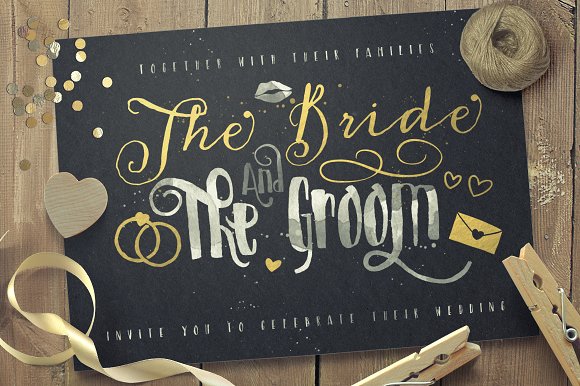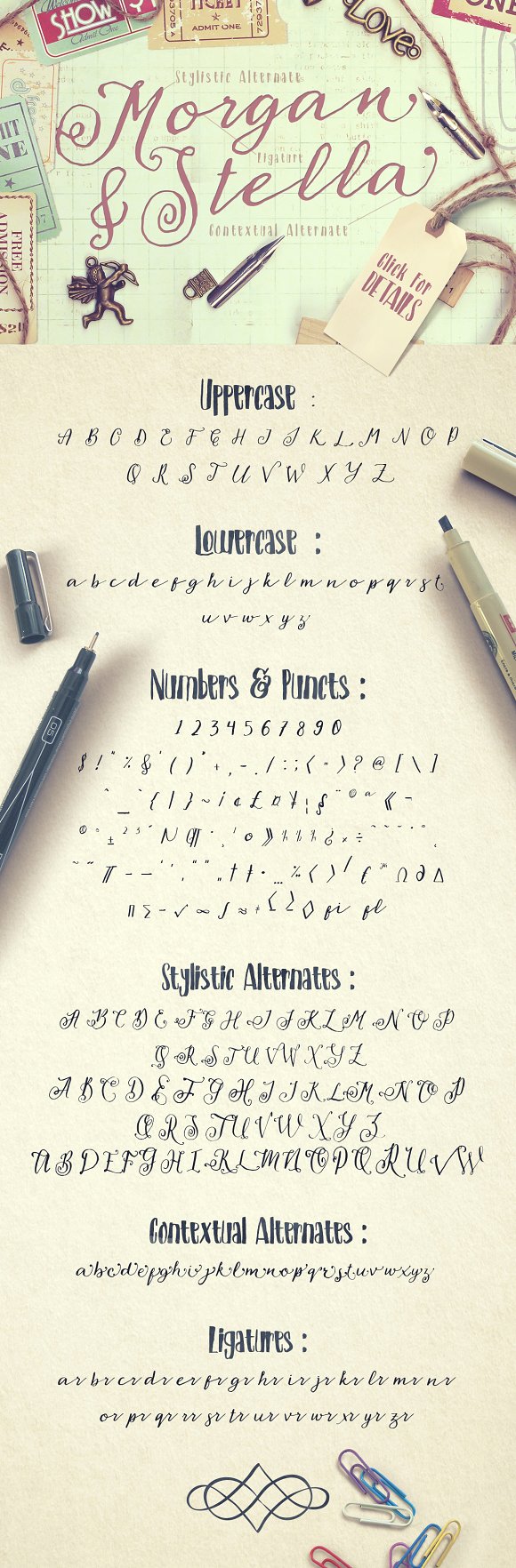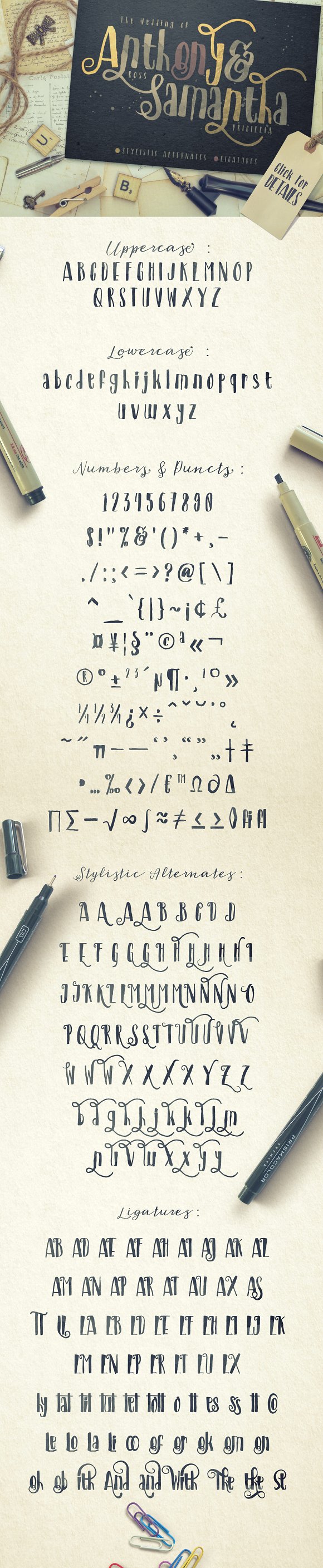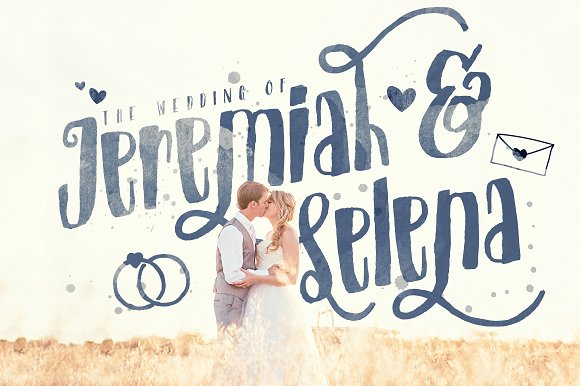
Just Married! Wedding Pack Font Bundle
Ladies and gentlemen, we present Just Married! Wedding Pack A bundle of 2 different vibe of typefaces and a huge vector objects & ornaments. Made with love and passion is a definite yes from us, instant lovely guaranteed for any of your wedding project such as an invitation card, display, decorations, scrapbooks, souvenirs, oh please stop me i know your imaginations are more than me, so just play with it 😉